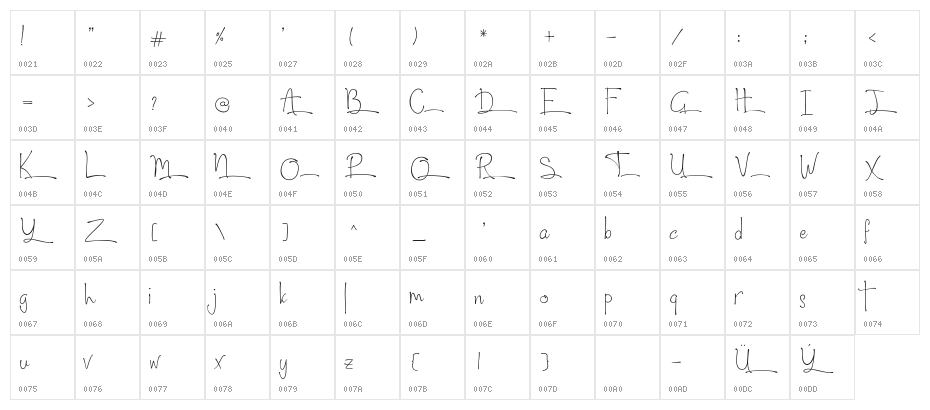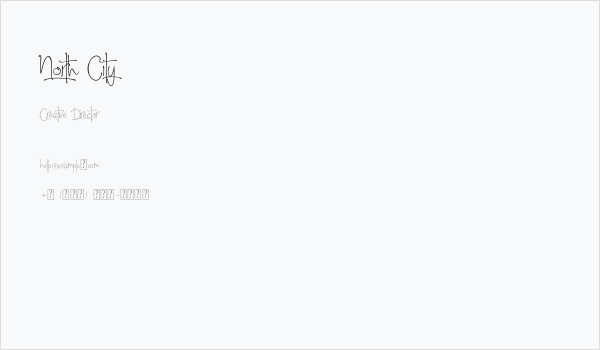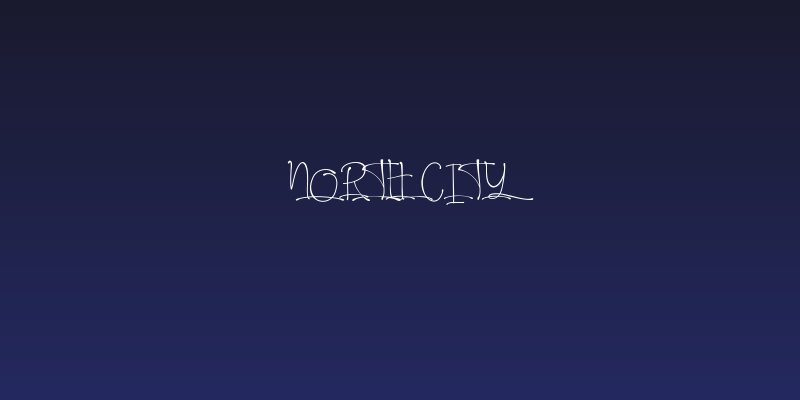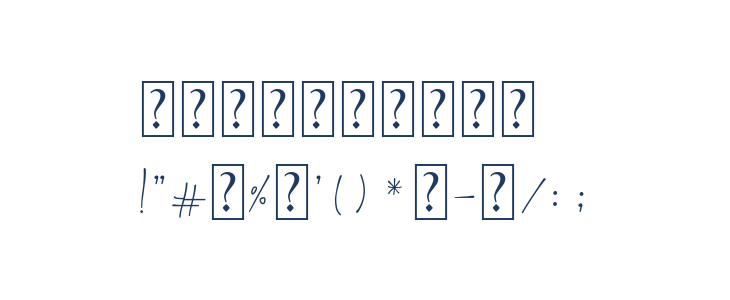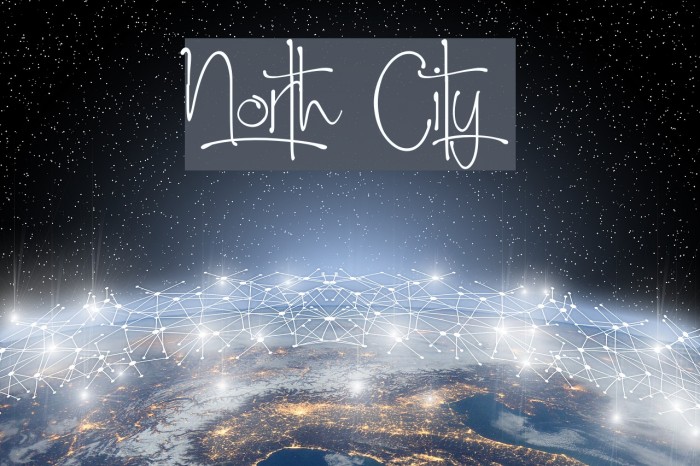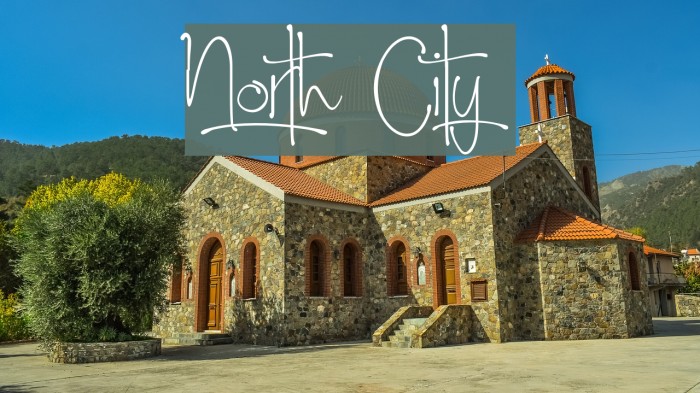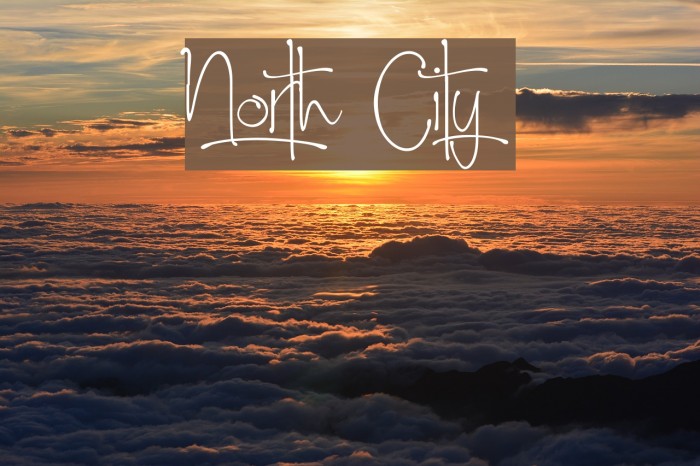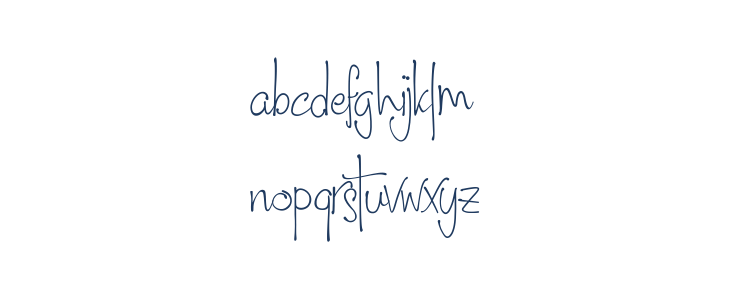
North City Font
North City Description
This font features a unique, decorative style with a handwritten appearance. The letters are characterized by elongated, flowing lines and intricate loops, giving it an artistic and whimsical feel. The uppercase letters are particularly elaborate, with extended strokes that often intersect or overlap, creating a sense of movement and fluidity. The lowercase letters maintain the same playful aesthetic but with a slightly more restrained design, ensuring readability. The numerals and special characters are consistent with the overall style, adding to its cohesive look. This font is ideal for creative projects where a touch of elegance and individuality is desired.
| Use Case | Logos, Invitations, Artistic Posters |
| Proposed Projects | Ideal for invitations, greeting cards, artistic posters, and branding materials that require a whimsical and elegant touch. |